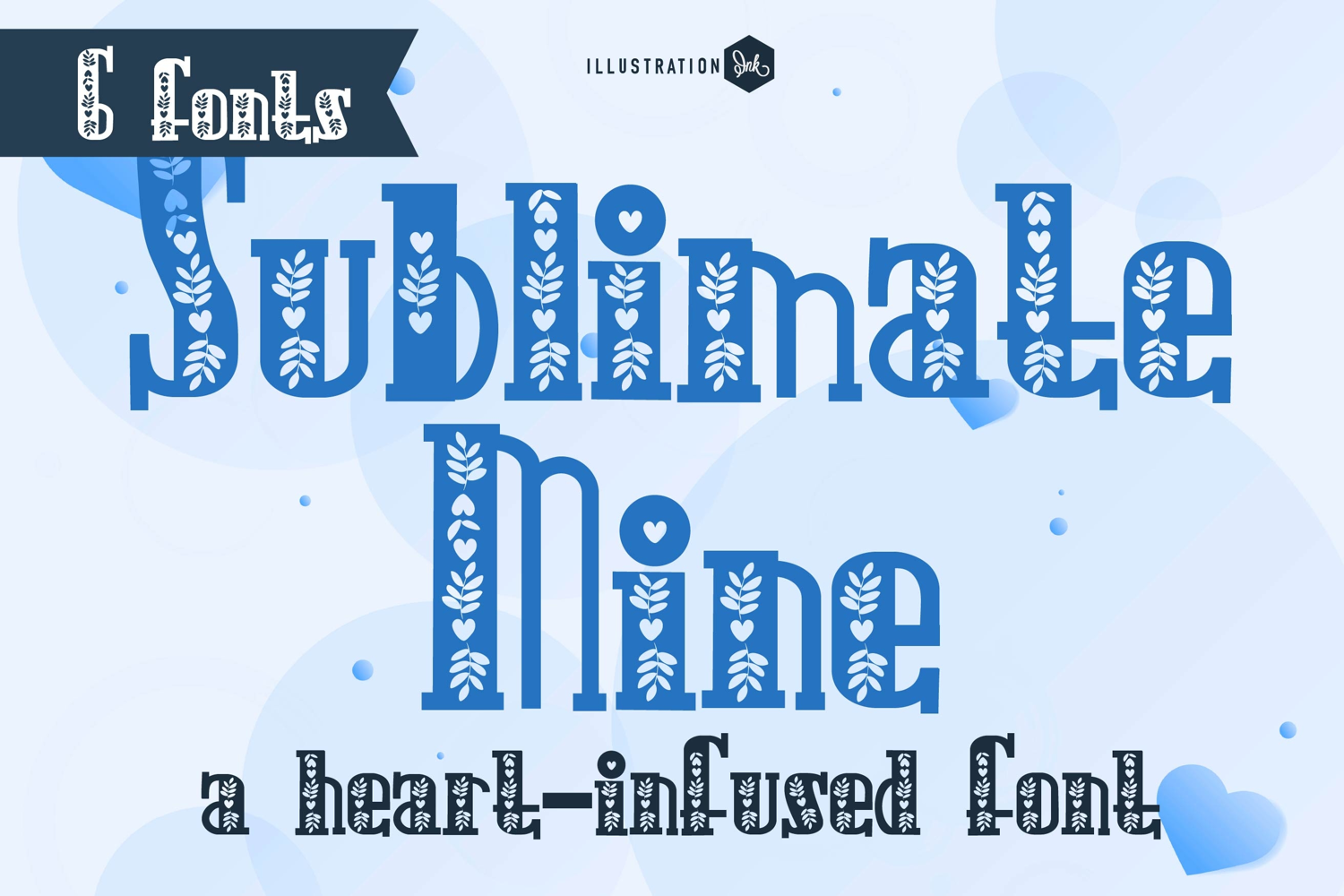
ZP Sublimate Font Family
This chunky, hand-crafted serif font is narrow with very stubby descenders. There are 6 variations included with several sporting a floral heart design.